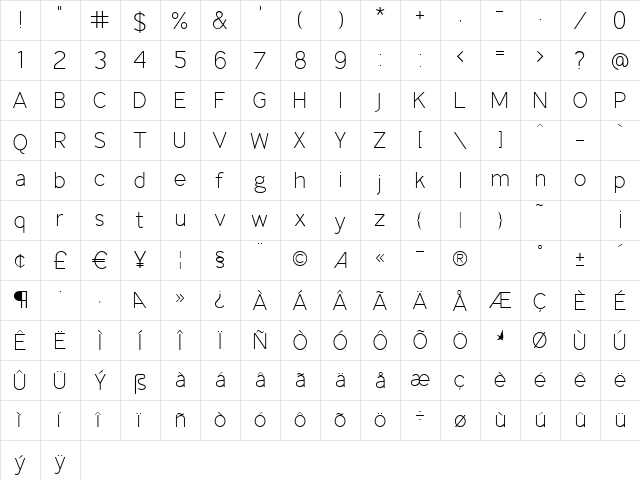
IdentikalSans Light
Design Context for IdentikalSans Typeface
IdentikalSans takes a measured approach to typography — its balanced proportions and neutral character make it a reliable workhorse for both digital and print work. The delicate stroke weight brings airiness and refinement to layouts.